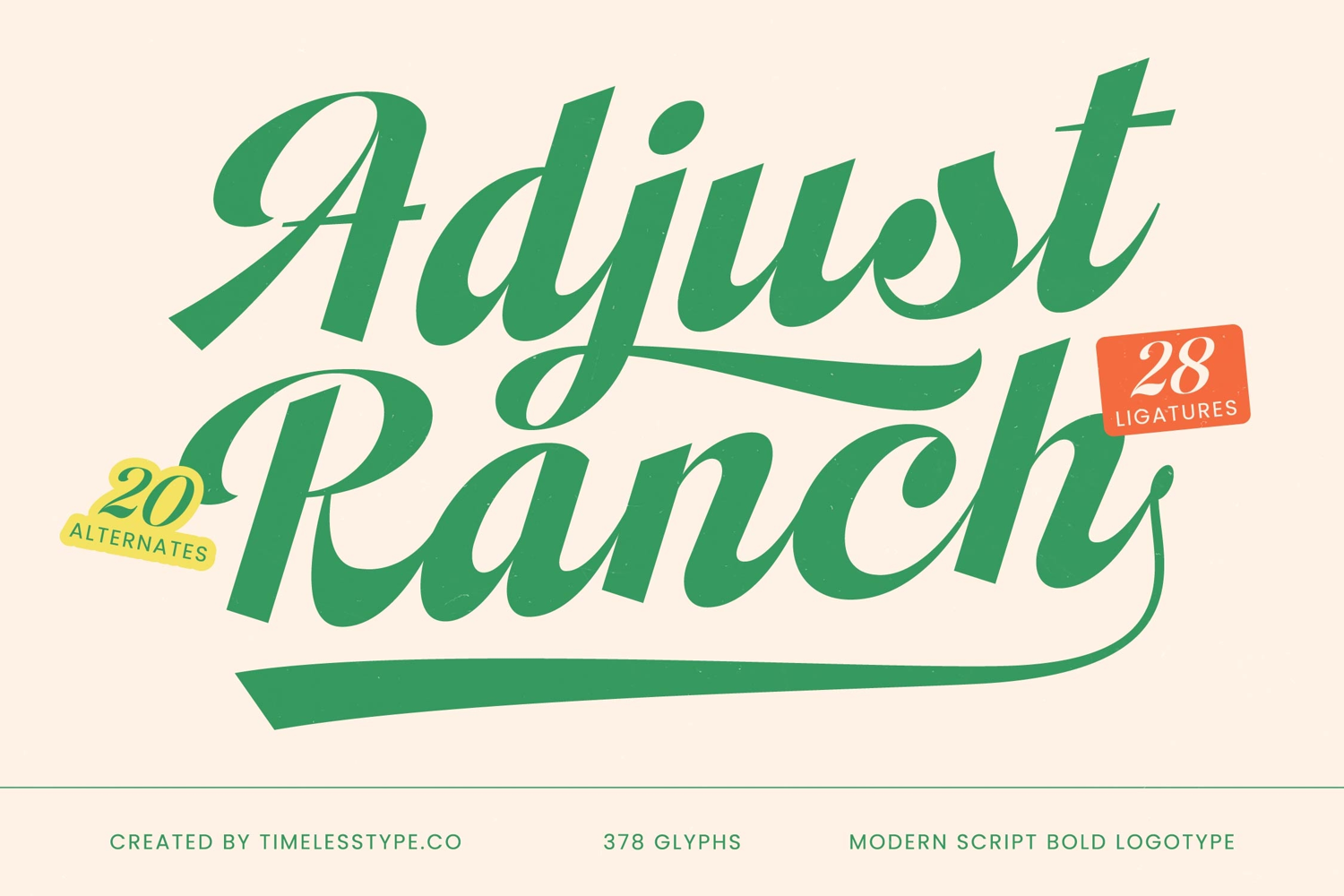
Adjust Ranch - Modern Script Bold Logotype
Elevate your designs with the distinctive presence of Font Adjust Ranch - Modern Script Bold Logotype Script, a typeface that effortlessly marries classic script elegance with a contemporary, bold aesthetic. This captivating font features fluid, expressive letterforms designed to command attention and convey sophistication. Its high-contrast strokes and dynamic flow make it an exceptional choice for projects requiring both visual impact and refined style.
Unleash unparalleled creative flexibility with Font Adjust Ranch - Modern Script Bold Logotype Script, boasting 20 alternates and 28 ligatures that allow for truly customized typographic expressions. These extensive glyph sets (378 total) provide endless possibilities for crafting unique headlines and striking logotypes. With its extensive multilingual support, Font Adjust Ranch - Modern Script Bold Logotype Script adapts seamlessly across global markets, making it incredibly versatile for international projects.
Perfectly suited for a diverse range of high-end applications, Font Adjust Ranch - Modern Script Bold Logotype Script is ideal for luxury branding, premium product packaging, and exclusive event invitations. Its bold logotype character ensures strong brand recognition, while its modern script style adds a touch of bespoke artistry to editorial layouts and digital marketing assets. Create unforgettable visual identities that resonate deeply with your audience.